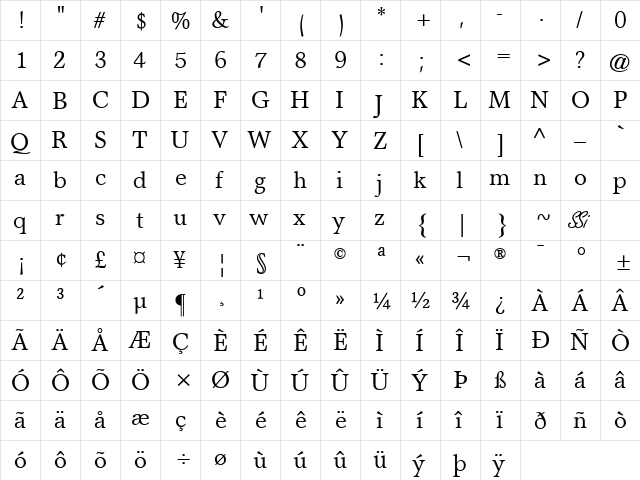
Axiomatic SSi Regular
Design Context for Axiomatic SSi Typeface
Axiomatic SSi takes a measured approach to typography — its balanced proportions and neutral character make it a reliable workhorse for both digital and print work.
Pro Tip: Pair Axiomatic SSi with a font of contrasting weight or personality to build a more expressive typographic hierarchy.